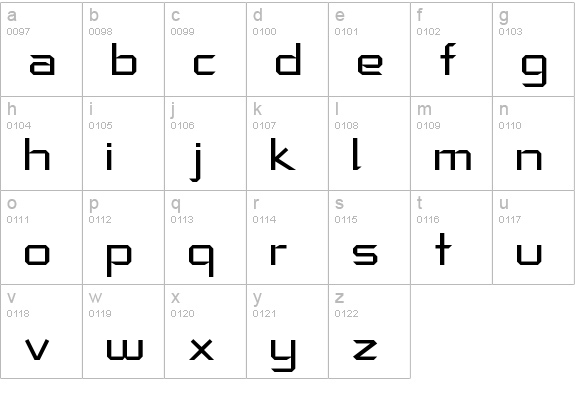
Crystal clear is a free for personal use font in the Modern > Digital category. It has been downloaded 32 times and is available for Windows, Mac and Linux.
Introducing Crystal Clear Font, a stunning and versatile typeface that will take your designs to the next level. With its sleek and modern look, Crystal Clear Font is perfect for a wide range of projects, from branding and logo design to invitations and social media graphics. What sets Crystal Clear Font apart is not only its exceptional visual appeal, but also the fact that it is absolutely free! Yes, you heard that right - this incredible font is freely available to download at FontsMarket.com. Now you can elevate your designs without breaking the bank. Crystal Clear Font boasts clean lines and sharp edges, giving your text a polished and professional appearance. Whether you're creating a bold headline or a delicate script, this font offers a variety of styles and weights to suit any project. Its versatility makes it an ideal choice for both digital and print applications, ensuring that your message is crystal clear no matter the medium. With Crystal Clear Font, you can effortlessly capture attention and make a lasting impression. Its refined and elegant aesthetic will add a touch of sophistication to any design, making it perfect for branding materials, advertisements, and editorial layouts. Stand out from the crowd and let Crystal Clear Font be the secret weapon in your creative arsenal. So why wait? Download Crystal Clear Font for free at FontsMarket.com and unlock a world of design possibilities. Whether you're a seasoned graphic designer or just starting out, this font is sure to become a valuable asset in your toolkit. Don't miss out on this incredible opportunity to enhance your projects with a font that is not only visually stunning but also freely available. Crystal Clear Font - clarity and creativity at your fingertips.